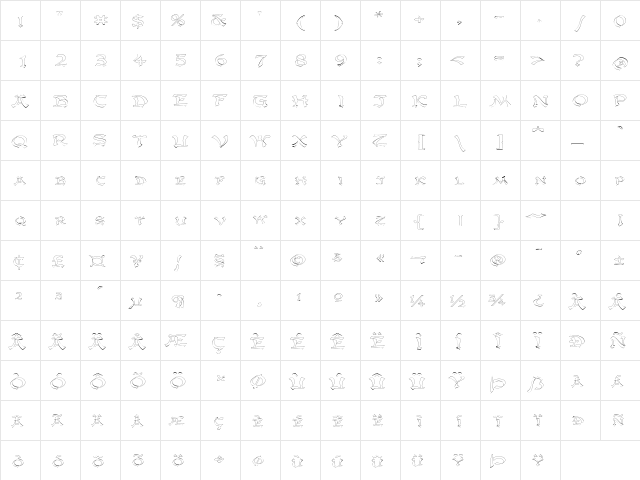
GengisKahnOutlineExtended Regular
Design Context for GengisKahnOutlineExtended Typeface
GengisKahnOutlineExtended brings ornamental detail and strong personality to headlines and identities, where visual impact matters more than quiet functionality.
Font Pairing: Pair with a clean neutral sans-serif for body copy to let GengisKahnOutlineExtended's character lead without overwhelming the composition.
Pro Tip: Treat GengisKahnOutlineExtended as the centrepiece of your typographic hierarchy. One strong heading set in a decorative face can carry an entire layout.